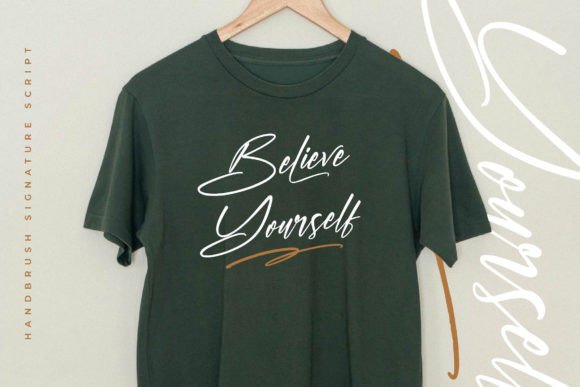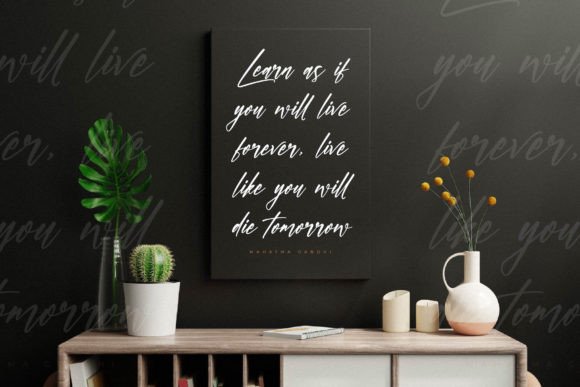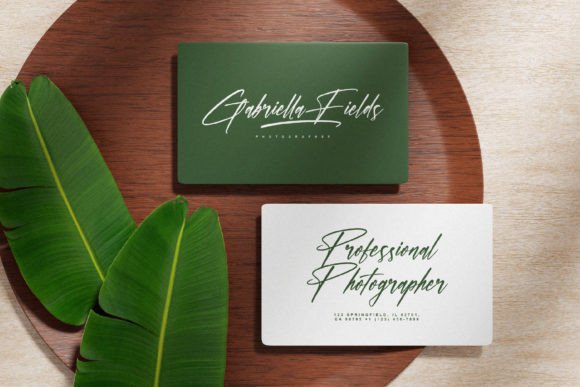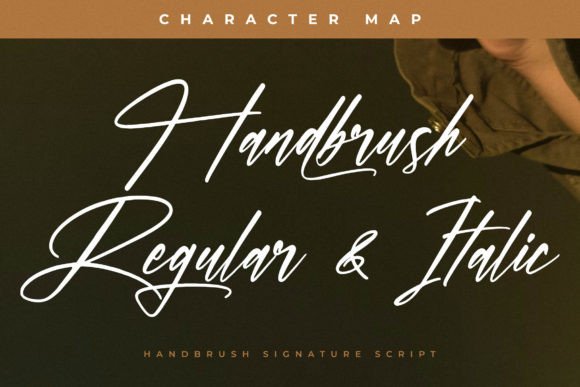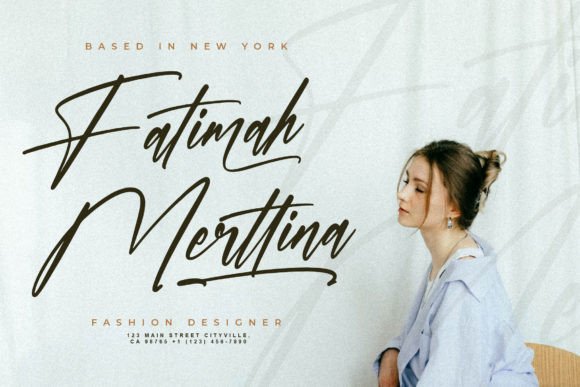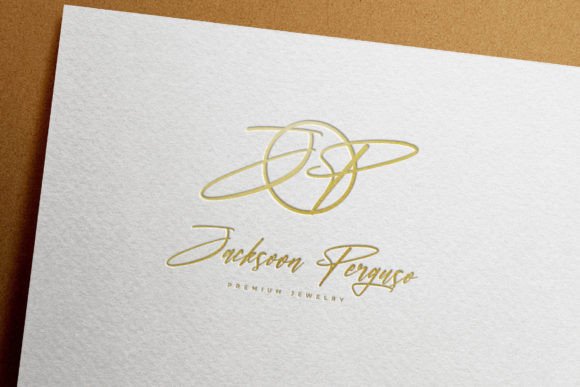
Introducing Archattson Hollmytro Font: The Perfect Handbrush Signature Script for Your Design Projects
Are you a designer or crafter looking for a unique and beautiful script font to elevate your projects? Look no further than Archattson Hollmytro Font, a stunning handbrush signature script that is perfect for a wide range of design applications.
What is Archattson Hollmytro Font?
Archattson Hollmytro Font is a carefully crafted handbrush signature script that exudes elegance and sophistication. With its flowing lines and delicate strokes, this font is sure to add a touch of class to any design project. Whether you’re working on a logo, branding project, homeware design, or product packaging, Archattson Hollmytro Font is the perfect choice.
Features of Archattson Hollmytro Font
- Unique and Handcrafted Design: Archattson Hollmytro Font is a one-of-a-kind, handbrush signature script that is sure to make your designs stand out from the crowd.
- Highly Versatile: This font is suitable for a wide range of design projects, including logos, branding projects, homeware designs, product packaging, mugs, quotes, posters, shopping bags, t-shirts, book covers, name cards, invitation cards, greeting cards, labels, photography, watermarks, and more.
- Elegant and Sophisticated: With its flowing lines and delicate strokes, Archattson Hollmytro Font adds a touch of elegance and sophistication to any design project.
- Easy to Read and Understand: Despite its elegant and cursive nature, Archattson Hollmytro Font is easy to read and understand, making it perfect for designs that require a clear and legible script.
Uses of Archattson Hollmytro Font
Archattson Hollmytro Font is a highly versatile font that can be used for a wide range of design projects, including:
- Logos and Branding Projects: Create a unique and memorable logo for your business or brand with Archattson Hollmytro Font.
- Homeware Designs: Add a touch of elegance to your homeware designs, such as kitchenware, bedding, and wall art.
- Product Packaging: Make your product packaging stand out with Archattson Hollmytro Font, perfect for food packaging, cosmetics, and more.
- Mugs and Drinkware: Create beautiful and unique designs for mugs, water bottles, and other drinkware.
- Quotes and Posters: Add a touch of inspiration to your quotes and posters with Archattson Hollmytro Font.
- T-Shirts and Apparel: Create stunning designs for t-shirts, hoodies, and other apparel.
- Book Covers and Publishing: Use Archattson Hollmytro Font to create eye-catching book covers and publishing materials.
Why Choose Archattson Hollmytro Font?
With so many fonts available, why choose Archattson Hollmytro Font? Here are just a few reasons:
- Unique and Exclusive: Archattson Hollmytro Font is a one-of-a-kind font that will make your designs stand out from the crowd.
- High-Quality Design: This font is carefully crafted with attention to detail, ensuring a high-quality design that will elevate your projects.
- Support for Multiple Languages: This font supports multiple languages, making it perfect for international design projects.